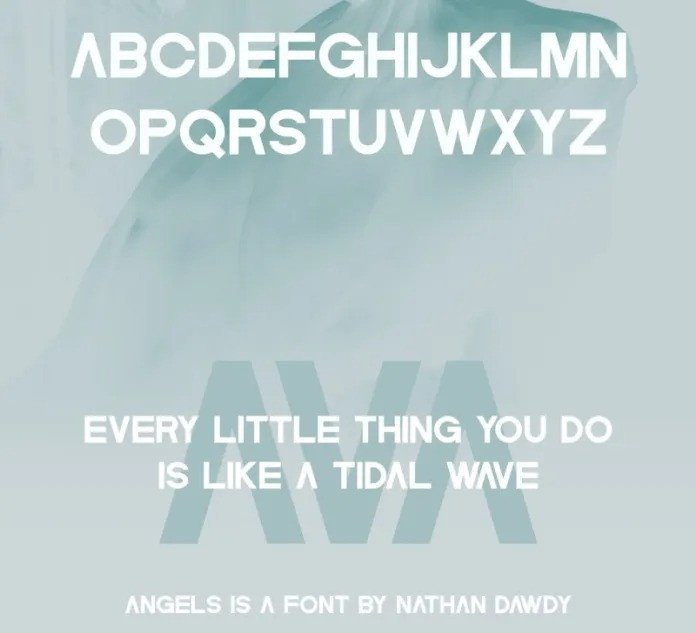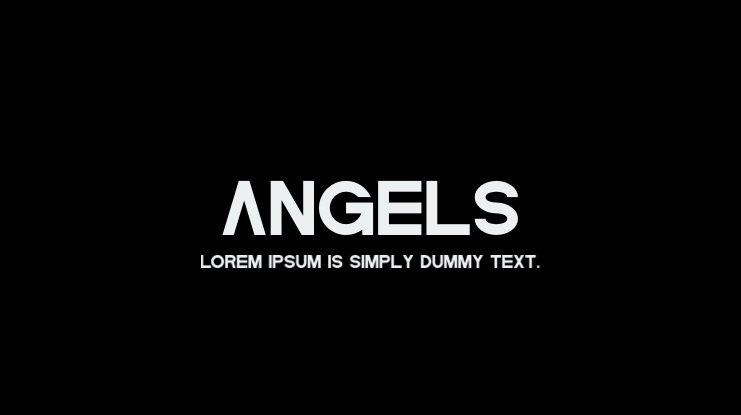
Angels Font
Grab our new font, Angels Sans Serif Font is a font inspired by the aesthetic and music of Angels & Airwaves. Angels is a display font and only contains uppercase letters, numbers, and symbols.